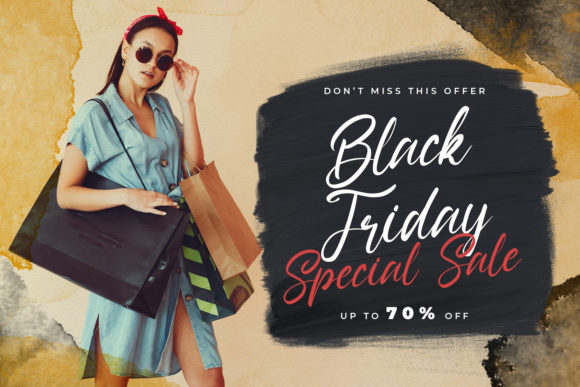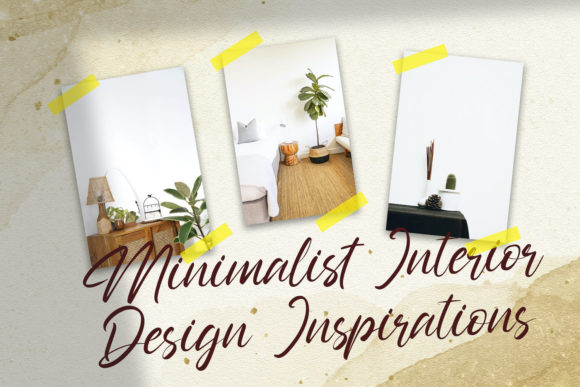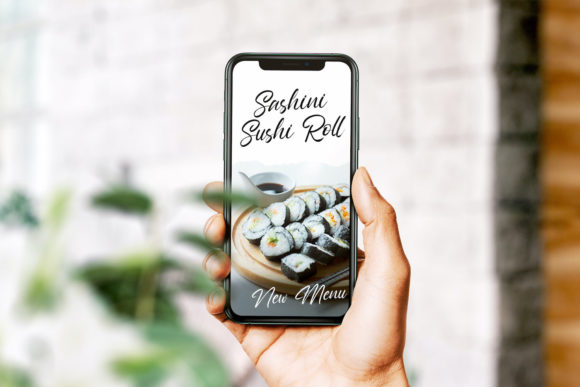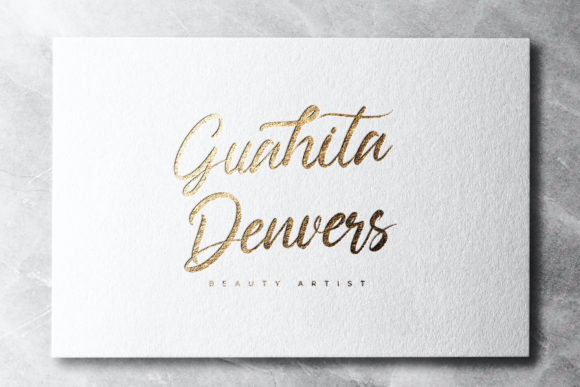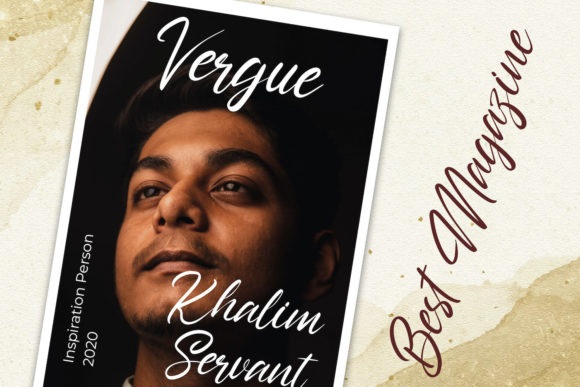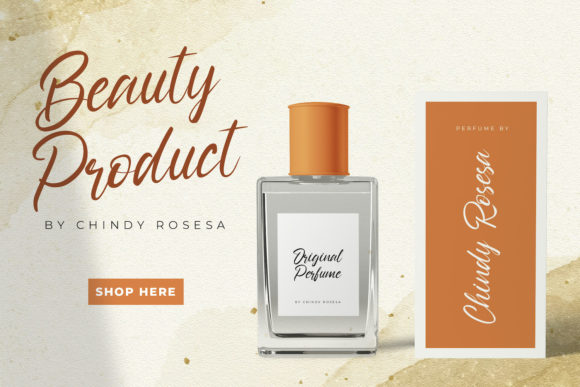
Introduction to Nathallis Font
As a designer, there’s nothing quite like that moment when a font comes together with your creative vision, bringing your idea to life in a way that’s truly breathtaking. It’s a feeling of pure joy, and it’s what drives us to keep pushing the boundaries of what’s possible in our work. For me, that moment often starts with a search for the perfect font – one that’s elegant, flowing, and adds a touch of sophistication to my design.
That’s where the Nathallis Font comes in – a delicate, handwritten font that’s sure to elevate your creative project to new heights. With its beautiful, well-balanced characters, it’s the perfect addition to any design, whether you’re working on a logo, brochure, or website.
Key Features of Nathallis Font
- The Nathallis Font is a high-quality design resource that offers a unique and creative touch to various projects.
- The font size is scalable, making it suitable for use in various design projects, from small logos to large-scale graphics.
- Nathallis Font is designed at a high resolution of 300 DPI, ensuring crisp and clear text output.
- This font is an excellent choice for creative projects, including graphic design, digital art, and typography-based designs.
Honest Review: Nathallis Font
- ✨ Elegant and modern design: The Nathallis Font has a sleek and sophisticated look that’s perfect for creative projects.
However, I did encounter some limitations while using the font. ⚠️ Limited character set: The Nathallis Font only includes a limited set of characters, which may not be suitable for projects that require a wide range of languages or special characters.
Overall, I was impressed by the Nathallis Font’s high quality and design versatility. While it may have some limitations, it’s a great resource for designers who are looking for a free and stylish font to use in their creative projects.
Nathallis Font
Design Tips
To get the most out of the Nathallis Font, use it with a transparent background to create a modern and sleek design. Experiment with different font sizes and styles to add depth and visual interest to your project.
The Nathallis Font is suitable for a variety of creative projects, including:
- Web design and digital marketing materials
Alternatives to Nathallis Font
The Alex Brush Font is a beautiful script font perfect for creative projects that require a touch of elegance and sophistication. It’s ideal for designing wedding invitations, wedding stationery, and other high-end designs. The Alex Brush Font has a similar cursive feel to Nathallis Font but with a more refined and delicate touch.
The Carolyna Pro Font is a high-quality script font suitable for a wide range of design projects, from branding to advertising. It’s a great alternative to Nathallis Font for designers who want a font with a similar feel but with more versatility and flexibility. The Carolyna Pro Font features a transparent background, making it easy to use on any design resource.
The Great Vibes Font is a free download font that’s perfect for designers who want a high-quality script font without breaking the bank. It’s ideal for designing posters, flyers, and other promotional materials. The Great Vibes Font has a similar playful feel to Nathallis Font but with a more modern and edgy touch.